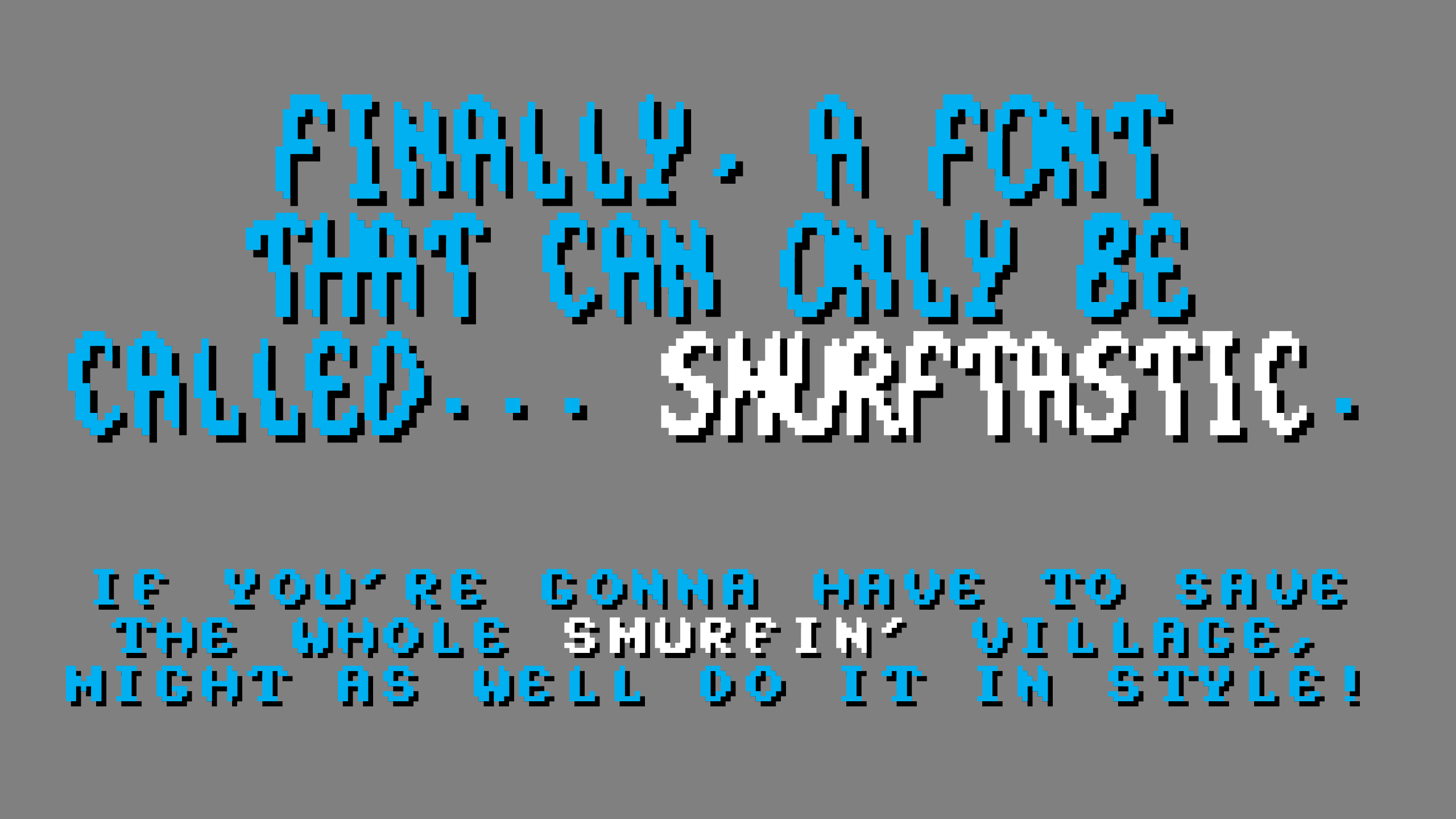
Grab your smurfboard, 'cause you're gonna need it to ride this wave! This font pack is pretty smurfin' unique, all things considered. Both the large and small fonts are from the 8-bit Nintendo/NES port of "The Smurfs". Maybe I'll get to the other ports later... maybe.Smurfs is a trademark of Studio Peyo S.a. The 1994 video game is copyright Infogrames / Bit Managers. This font may not be commercially distributed. Other than that, enjoy it to your heart's content!